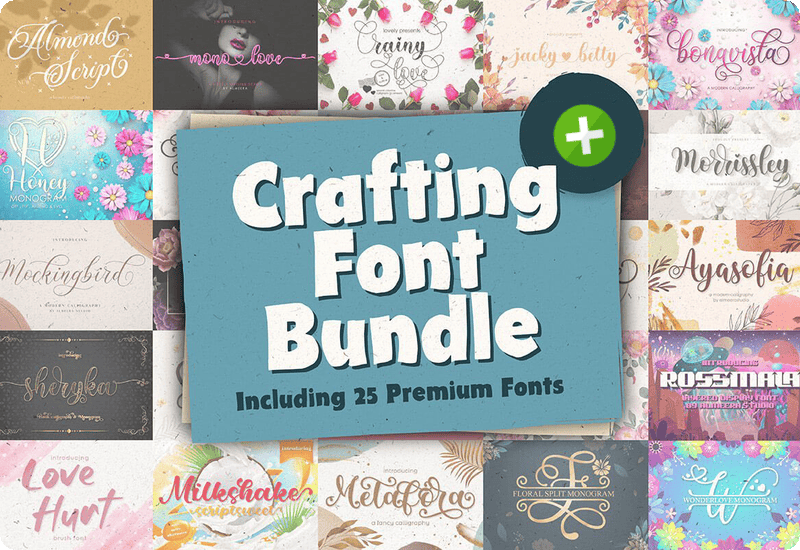
Unlock endless creative possibilities with the Crafting Font Bundle Vol.02 by Almeera Studio, featuring 25 magical premium handwritten fonts with charming swashes and decorative elements. This exclusive bundle, valued at $338, is now available for FREE with a commercial license, giving you the freedom to elevate your projects without restrictions.
Whether you’re crafting personalized invitations, designing logos, creating DIY crafts, or producing stunning digital content, this bundle offers a diverse collection of high-quality fonts to bring your ideas to life. Each font is thoughtfully crafted to convey elegance, charm, and versatility. With this incredible variety of fonts at your fingertips, you’ll never run out of creative inspiration.
Premium Fonts Included in the Bundle
- Almond Script: A beautiful script font perfect for elegant and modern designs.
- Honey Monogram: Add a decorative touch to your monogram projects with this stunning font.
- Handy: A versatile handwritten font ideal for casual and creative projects.
- Mockingbird: Capture a whimsical vibe with this elegant handwritten font.
- Midnight Vagansa: Bring sophistication to your designs with this premium script font.
- March Monogram: A decorative monogram font ideal for personalized designs.
- Jacky Betty: Add charm to your crafts with this delightful script font.
- Milkshake: A sweet and playful cursive font for dynamic designs.
- Wonderlove: Ideal for romantic and dreamy design themes.
- Tropical Monogram: A bold and tropical-inspired display font for standout projects.
- Babylone: Perfect for handwritten quotes and elegant projects.
- Fairytails: Add a touch of whimsy to your designs with this delightful font.
- Love Hurt: A romantic script font for heartfelt projects.
- Floral Split: Perfect for floral-themed invitations and cards.
- Monolove: A versatile font that radiates charm and elegance.
- Monasha: Beautifully crafted for sophisticated design needs.
- Sefilya: Ideal for professional branding and elegant design themes.
- Ayasofia: A script font that captures cultural elegance.
- Rainy Love: Add a poetic touch to your designs with this premium font.
- Morrissley: Perfect for sophisticated branding projects.
- Bonavista: Ideal for creating unique DIY craft projects.
- Sheryka: A bold display font for impactful designs.
- Metafora: A versatile and elegant handwritten font.
- Dorothy: A beautiful font for storytelling and whimsical projects.
- Rossmala: A decorative display font that stands out.
Why Choose Crafting Font Bundle Vol.02?
Discover the incredible benefits of the Crafting Font Bundle Vol.02, a treasure trove for designers and creatives alike. This collection is meticulously curated to meet diverse design needs, blending functionality with artistic flair.
1. Versatile Design Applications
Whether you’re designing logos, invitations, social media posts, or DIY crafts, this font bundle provides endless creative options.
2. Elegant Handwritten Styles
Each font in this collection is crafted to add a charming and sophisticated touch to your designs, making them stand out.
6. Wide Range of Font Styles
From elegant script fonts to bold monogram and display fonts, this collection covers every design need.
7. Ideal for Crafting Projects
Create stunning personalized crafts, DIY gifts, and professional branding materials effortlessly.